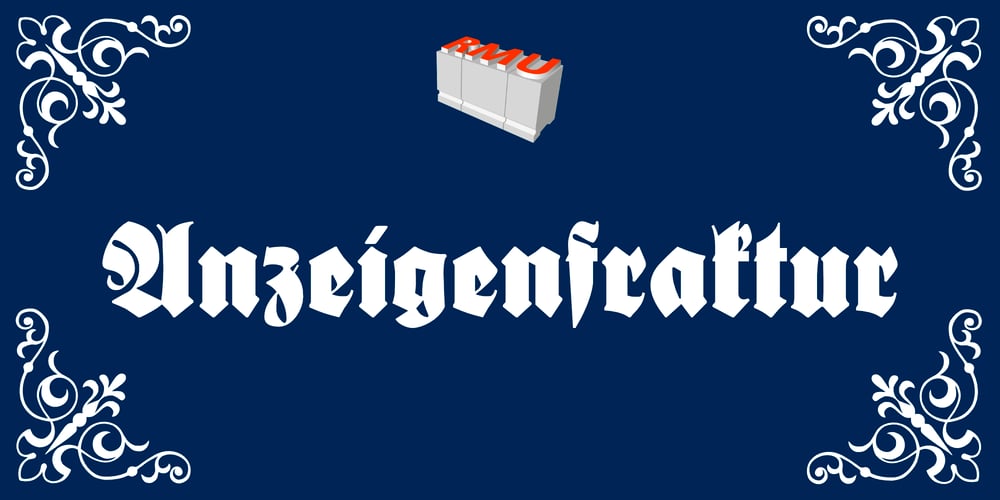
Anzeigenfraktur
Anzeigenfraktur Font Family was designed by Rudolf Koch, Ralph M. Unger and published by RMU. Anzeigenfraktur contains 1 styles and family package options. A blackletter font by Rudolf Koch for Klingspor Broth., Frankfurt am Main, released in 1916, which was now redesigned for modern use.It contains the long s and discretionary ligatures. That’s why it is recommended to activate this OT-feature. The long s can be reached either by typing the integral sign [ ∫ ] or by turning the round s into the long s using the OT-feature historical forms.